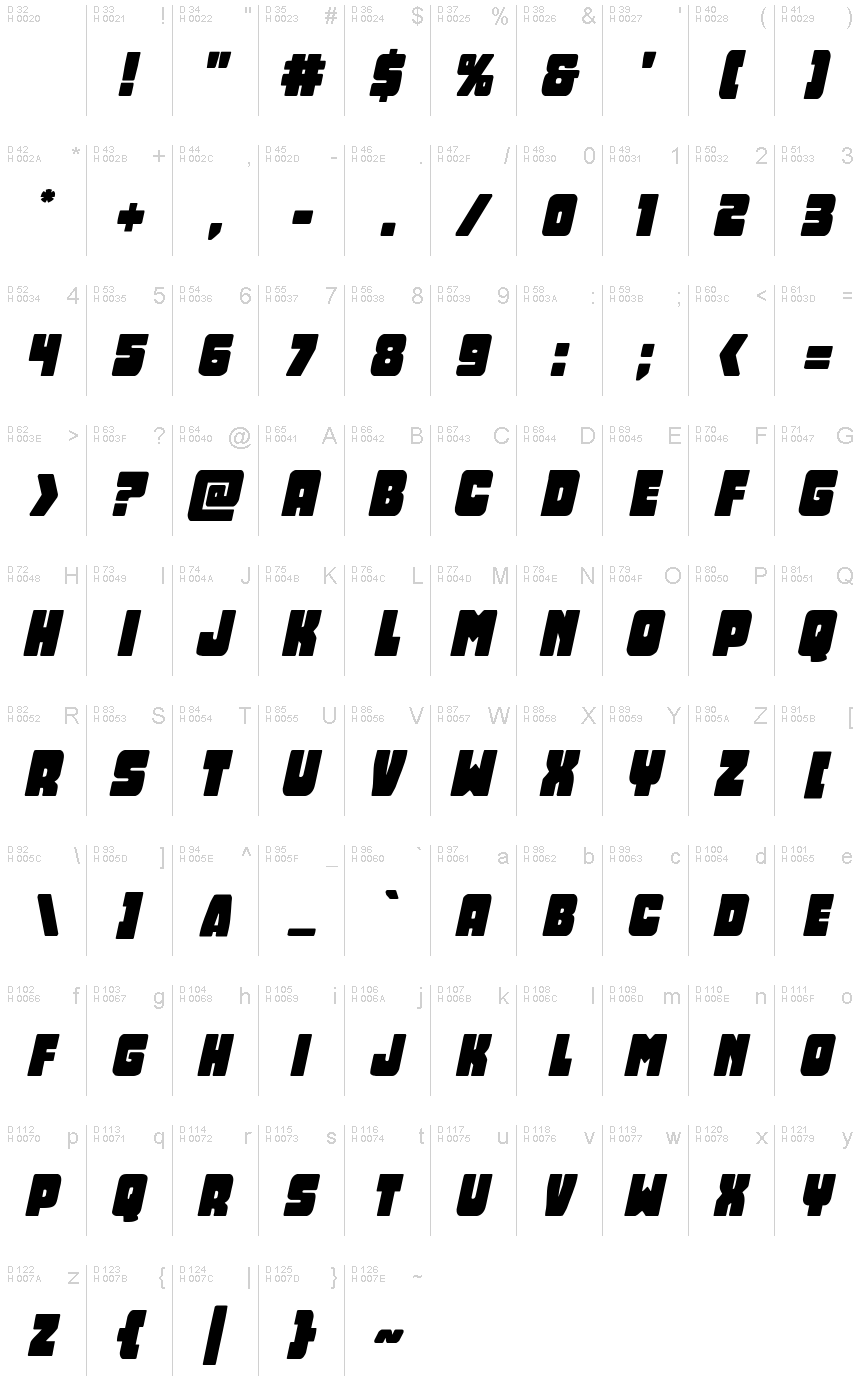
Opus Mundi Italic
Opus Mundi Italic is a striking display font that commands attention with its bold, condensed letterforms. Designed by Daniel Zadorozny, this font exudes a sense of strength and gravitas, making it an ideal choice for headings, logos, and other high-impact design elements. The italic slant and angular terminals lend the typeface a dynamic, modern aesthetic, while the condensed width ensures it maintains a powerful presence without overwhelming the surrounding layout.
This versatile font could find application in a wide range of contexts, from editorial design and branding to event marketing and product packaging. Its bold, distinctive character makes it a compelling option for designs that aim to convey a sense of authority, dynamism, or contemporary flair.